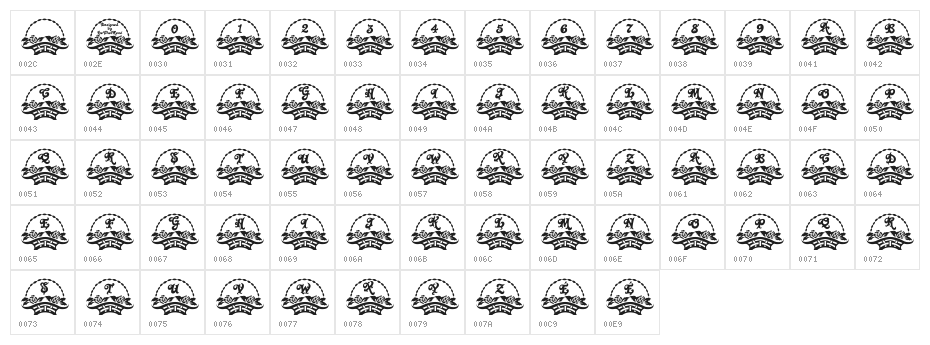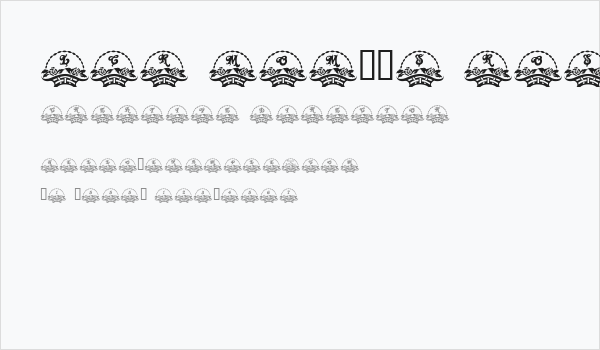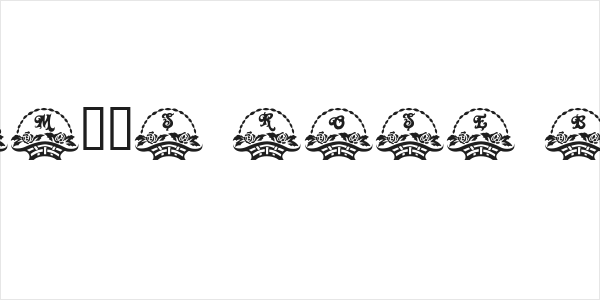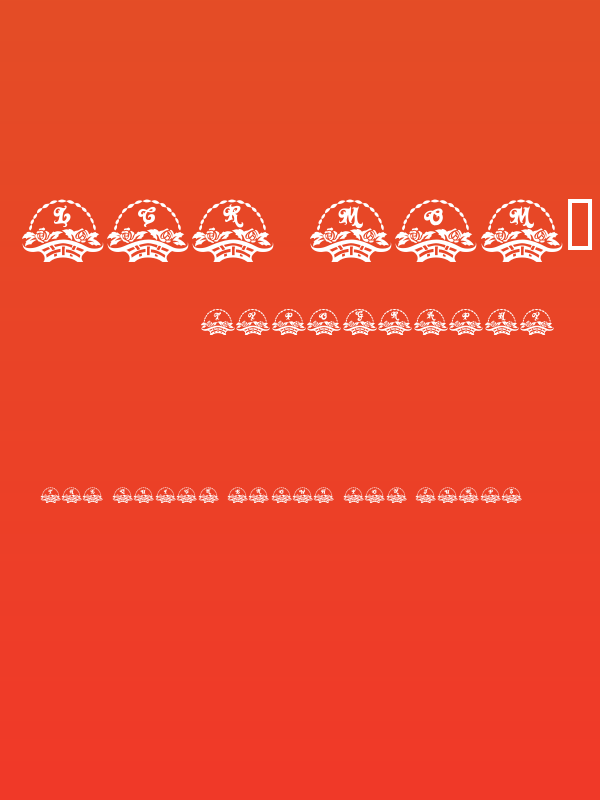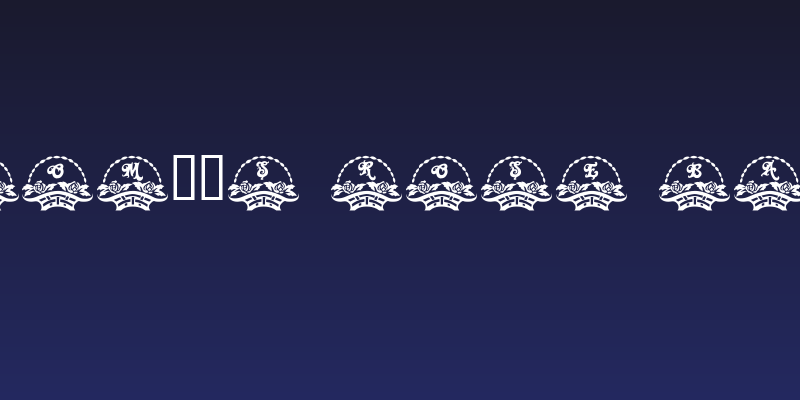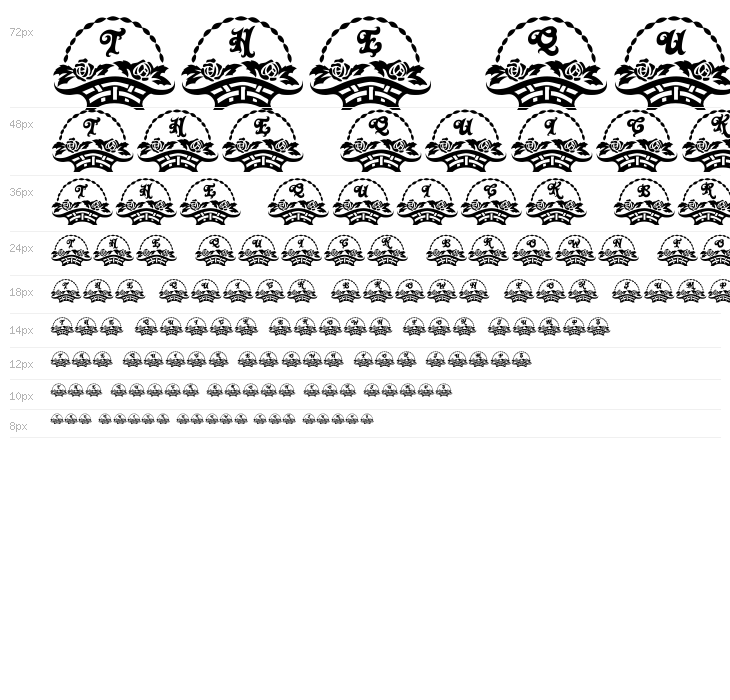
LCR Mom's Rose Basket Font
LCR Mom's Rose Basket Description
This decorative font features characters enclosed within ornate rose baskets, giving it a unique and artistic flair. Each letter and number is elegantly styled with intricate details, making it ideal for projects that require a touch of sophistication and creativity. The design is consistent across all characters, maintaining a cohesive look that is both charming and visually appealing. The font's decorative nature makes it stand out, perfect for special occasions or themed designs. Its intricate details and artistic presentation make it a great choice for invitations, greeting cards, or any project that benefits from a decorative touch.
| Use Case | Logos, Invitations, Decorative Text |
| Proposed Projects | Ideal for wedding invitations, greeting cards, decorative posters, and themed event materials. |